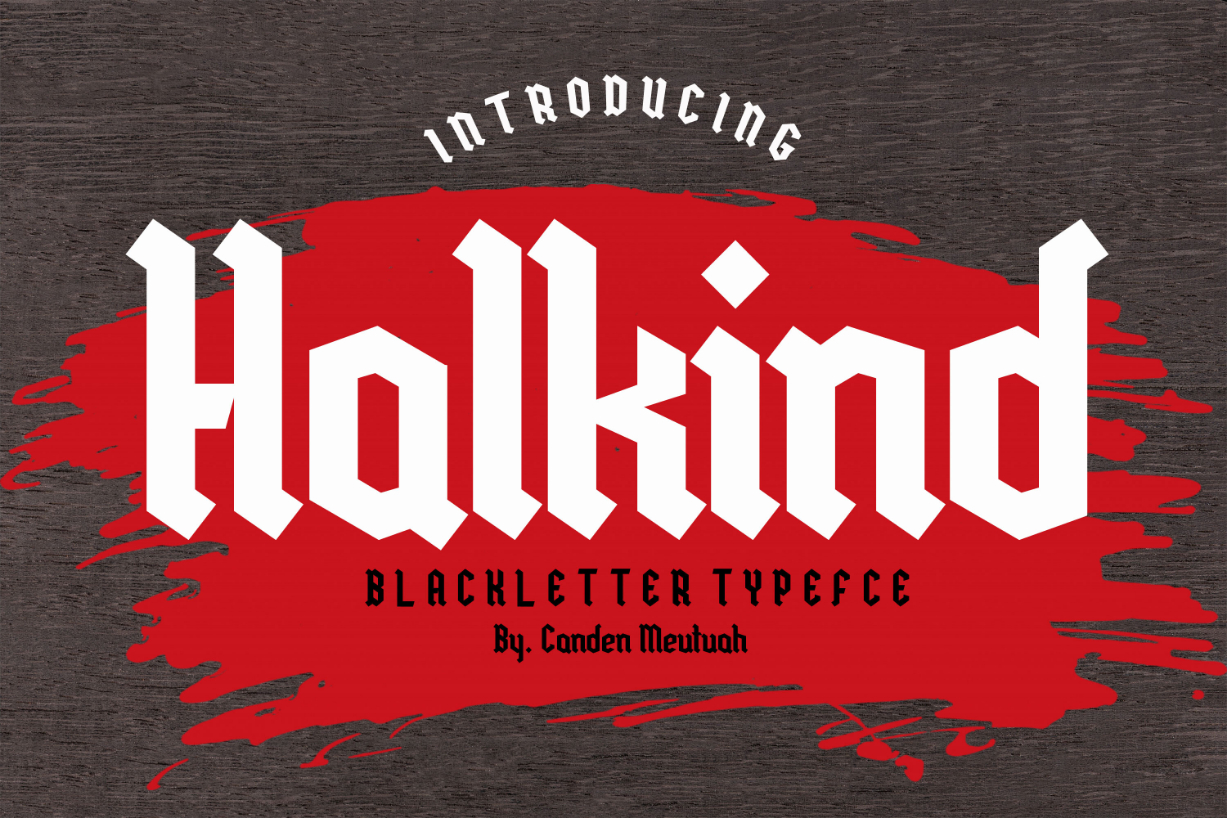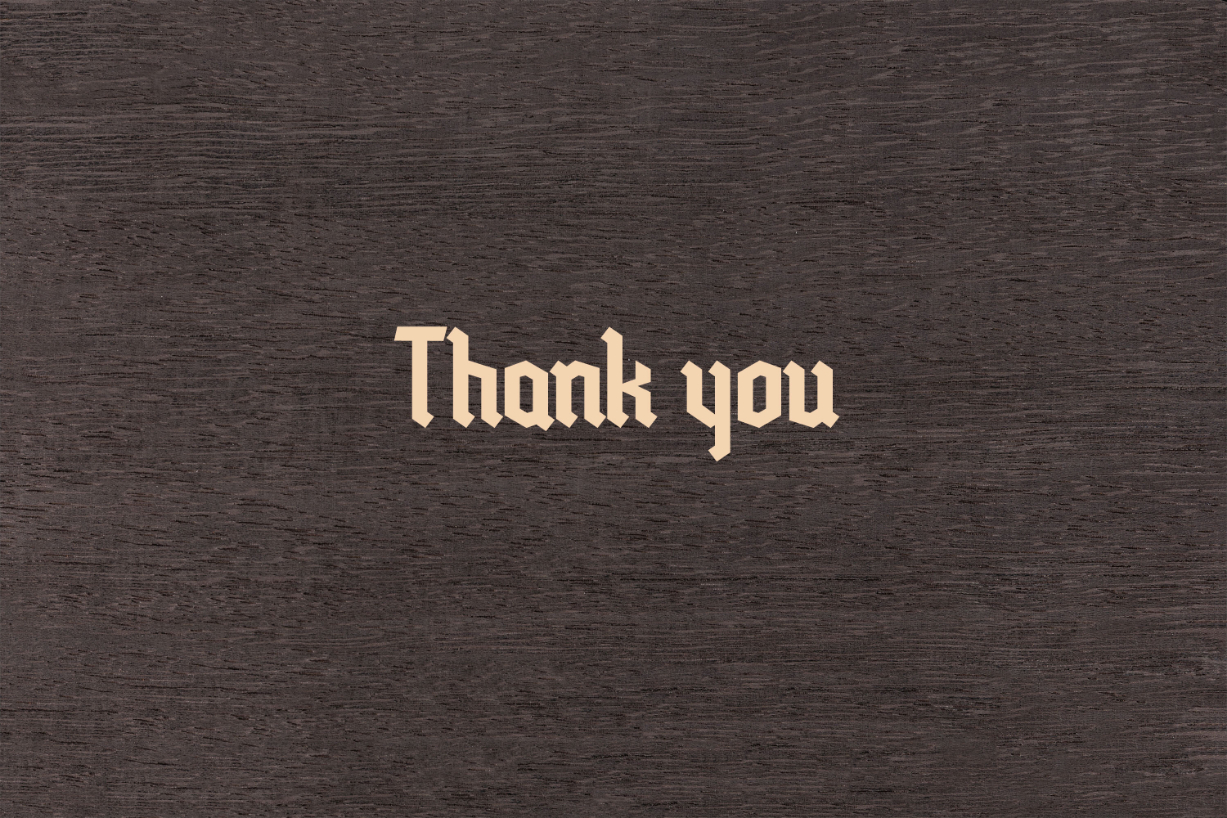
About Halkind Font
Halkind is an elegant Blackletter font that will add a touch of luxury and style to your projects. This is a very versatile font that works well in both large and small sizes.
This font is Perfect for branding projects, logo design, clothing branding, packaging, magazine titles, advertisements, t-shirts, postcards, editorials, magazine headlines, product packaging, and displaying masculine and feminine qualities.